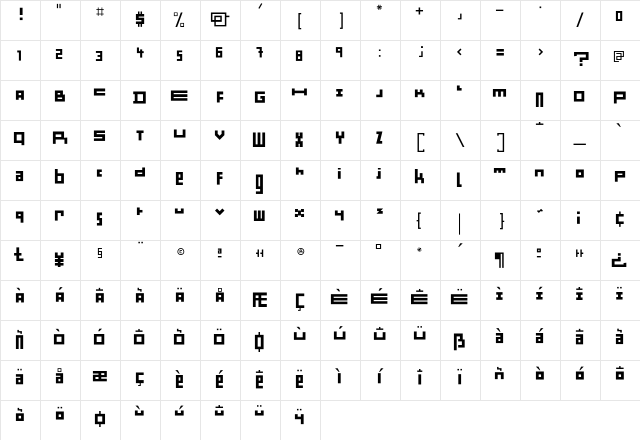
Minimum NoirPlafond
Style: NoirPlafond
Design Context for Minimum
Minimum is a composed and adaptable typeface that performs quietly and consistently across a wide range of design contexts.